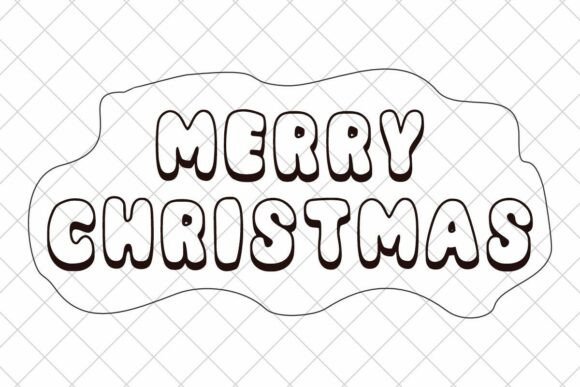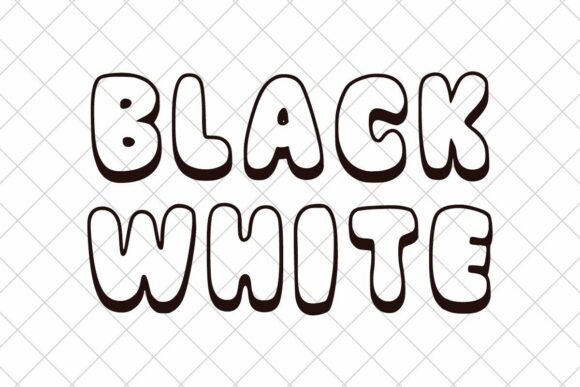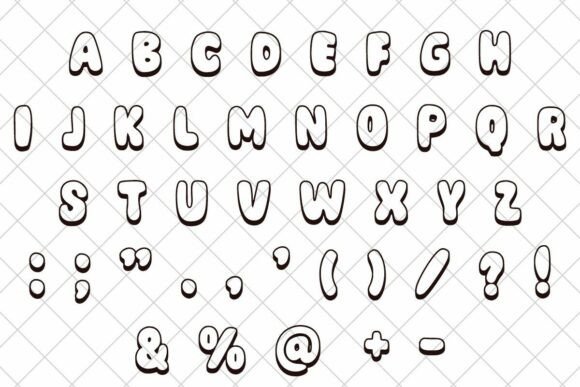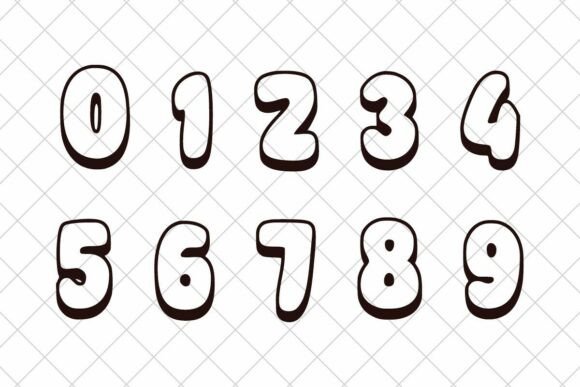
Candy Outline Font: A Sweet Addition to Your Design Projects
Are you looking for a font that can add a touch of fun and friendliness to your design projects? Look no further than the Candy Outline Font. This playful and visually delightful outline font is characterized by its thick, bubbly letterforms and whimsical shadow detailing, making it perfect for projects that need a sweet and cheerful tone.
Design and Features
The Candy Outline Font is designed entirely in uppercase with bold outlines, giving it a unique and eye-catching appearance. Its exaggerated curves and soft, rounded edges make it perfect for projects that need a touch of fun and friendliness. The font maintains high legibility while delivering a unique personality that appeals to children and nostalgic adults alike.
Uses for the Candy Outline Font
The Candy Outline Font is ideal for a variety of design projects, including:
- Children’s book titles: Add a touch of whimsy and fun to your children’s book titles with this delightful font.
- Candy packaging: Create eye-catching packaging for your candy products with a font that’s sure to appeal to kids and adults alike.
- Birthday invitations: Make your birthday invitations stand out with a font that’s as sweet as the celebration itself.
- Posters: Create fun and playful posters for kids’ events, parties, or promotions with this font.
- Logo designs: Use the Candy Outline Font to create a unique and memorable logo for your business or product.
- Product labels: Add a touch of fun and friendliness to your product labels with this delightful font.
- Coloring pages: Create fun and interactive coloring pages for kids with this font.
- Toy branding: Use the Candy Outline Font to create a brand identity that’s playful and fun.
- Signage for sweet shops or cafés: Create eye-catching signage for your sweet shop or café with a font that’s sure to appeal to kids and adults alike.
- DIY crafts: Add a touch of whimsy and fun to your DIY craft projects with this delightful font.
Aesthetic and Tone
The Candy Outline Font has a youthful, joyful, and lighthearted aesthetic that’s perfect for any project needing an upbeat and cheerful tone. Its outlined nature also makes it an excellent candidate for color-in or layered effects in design work, giving you even more creative possibilities.
Why Choose the Candy Outline Font?
- Unique and eye-catching design: The Candy Outline Font has a unique and eye-catching design that’s sure to stand out in any project.
- High legibility: Despite its playful design, the Candy Outline Font maintains high legibility, making it easy to read and understand.
- Versatile: The Candy Outline Font is versatile and can be used for a wide range of design projects, from children’s books to product labels.
- Fun and friendly: The Candy Outline Font has a fun and friendly aesthetic that’s perfect for projects that need a touch of whimsy and playfulness.
In conclusion, the Candy Outline Font is a sweet addition to any design project. Its playful and visually delightful design, high legibility, and versatility make it perfect for a wide range of projects, from children’s books to product labels. Whether you’re a designer, crafter, or DIY enthusiast, the Candy Outline Font is sure to bring a touch of fun and friendliness to your projects.